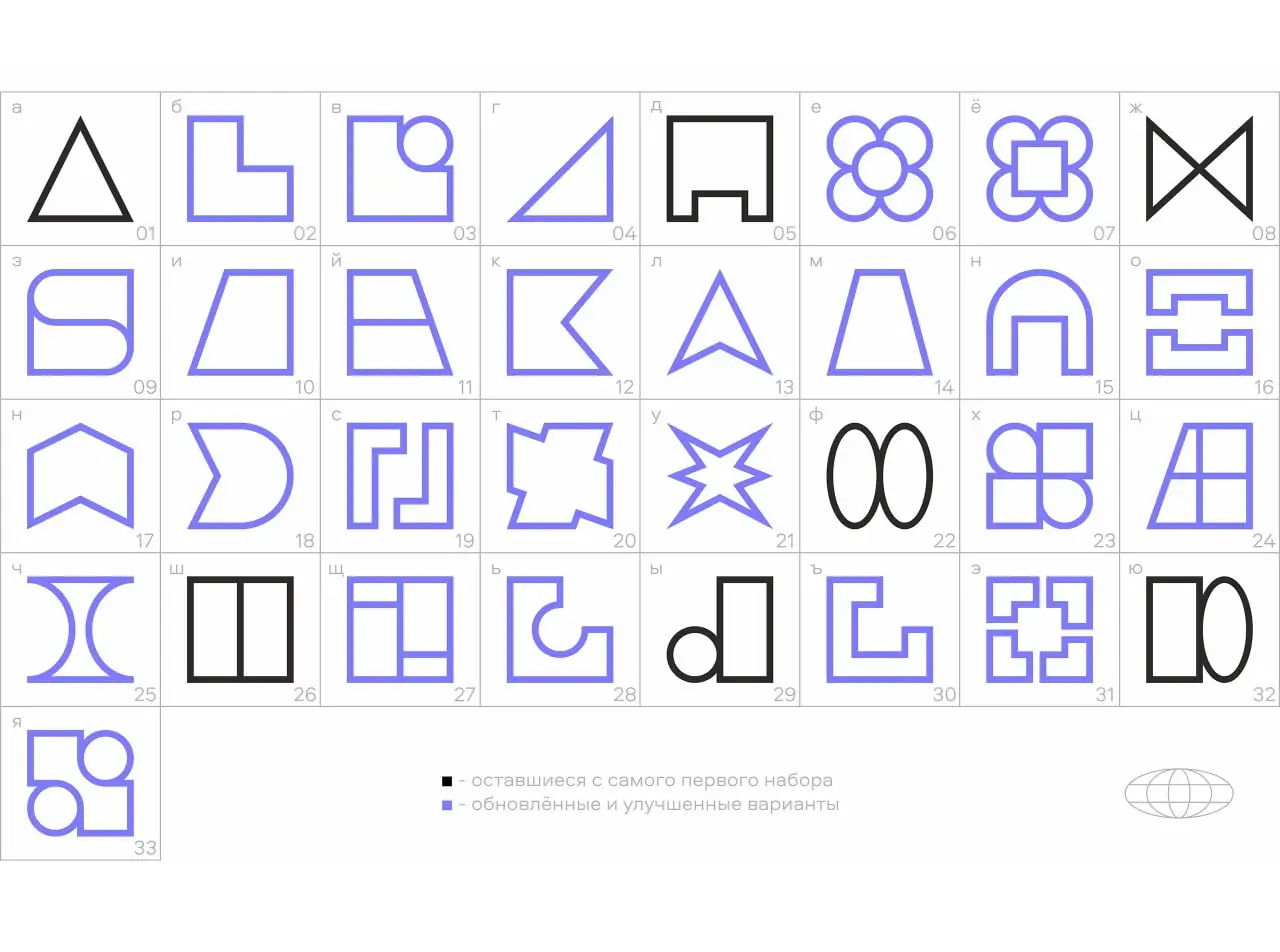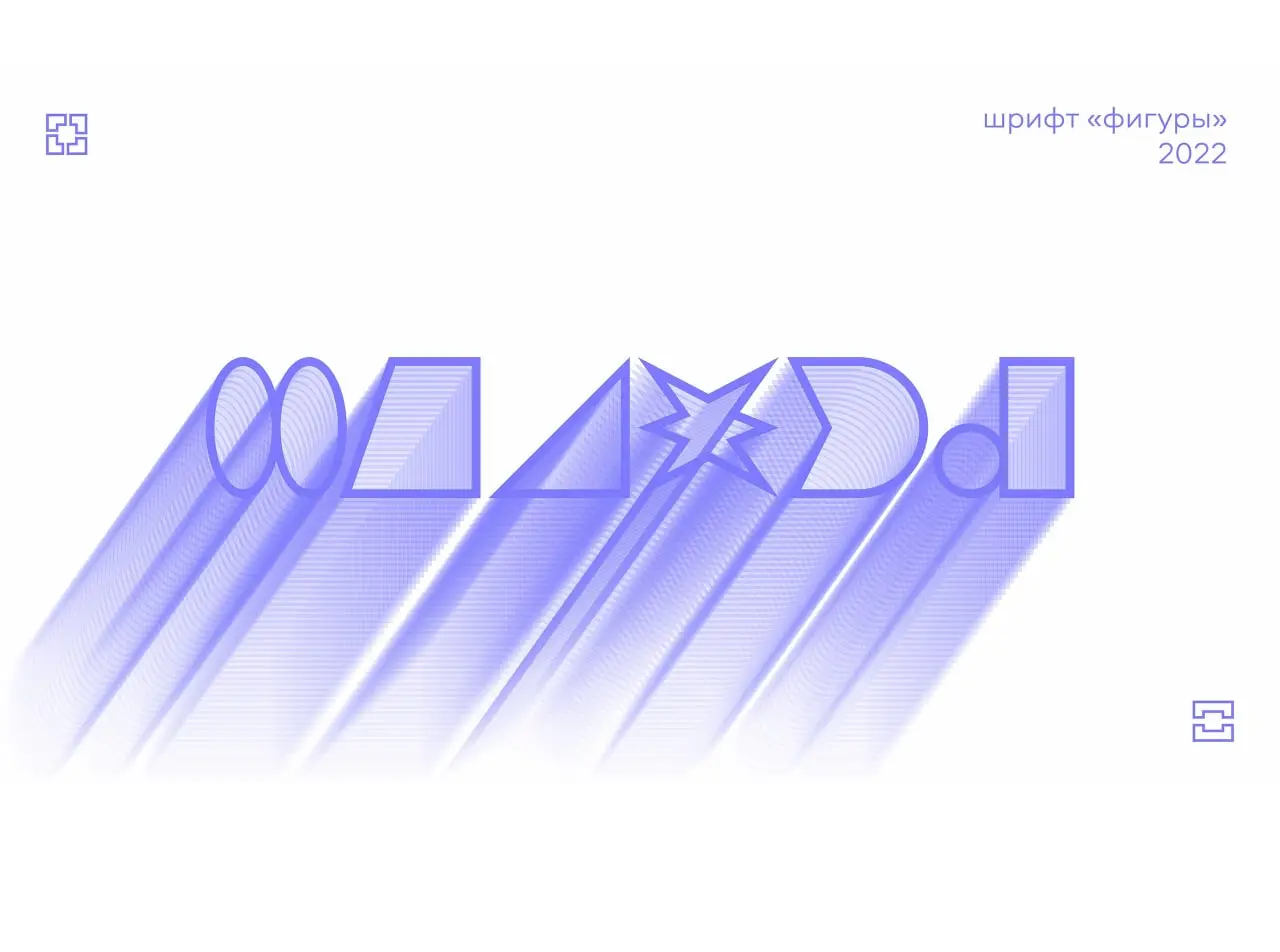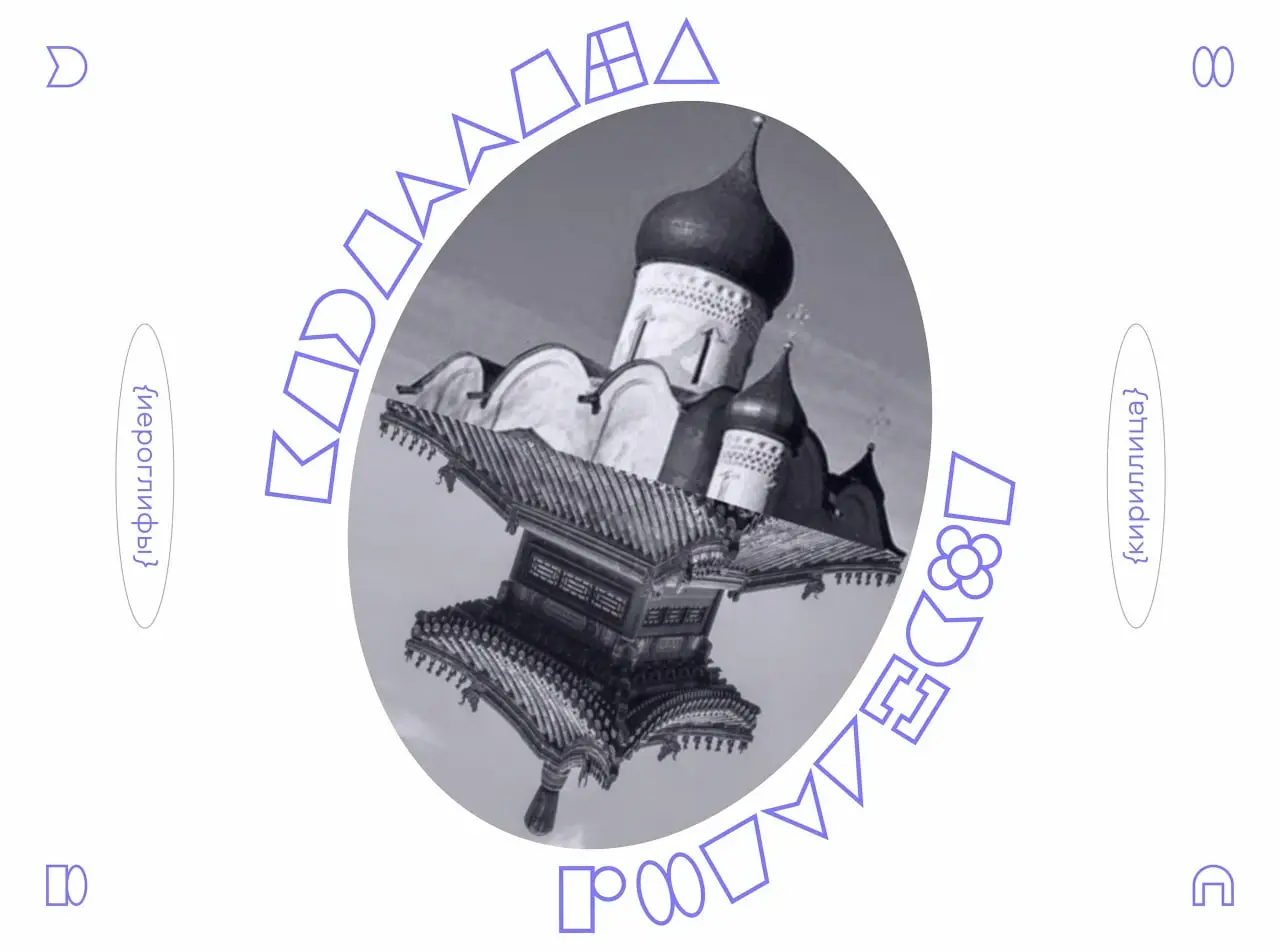
Figures Font
The Figures Font is a stylish and modern typeface designed to elevate your design projects. With its unique character shapes and clean lines, this font is perfect for a variety of applications, including branding, logos, web design, and print materials.
• Stylish ligatures for enhanced typography
• Ideal for creating eye-catching headlines and titles
• Use in both digital and print projects for a cohesive look
• Experiment with different weights to find the perfect balance for your design